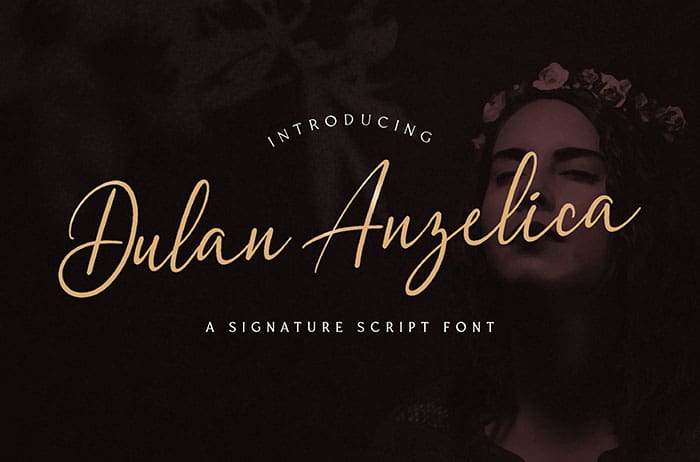
Dulan Anzelica Script Font
Dulan Anzelica Script Font with Handwritten Style. This font is perfect for fashion brand, wedding invitation, business card, logo brand, signature, and also for calligraphy purpose. This font is available only for personal use. Created this font by StringLabs. You can also search more free Script Fonts. Thanks.